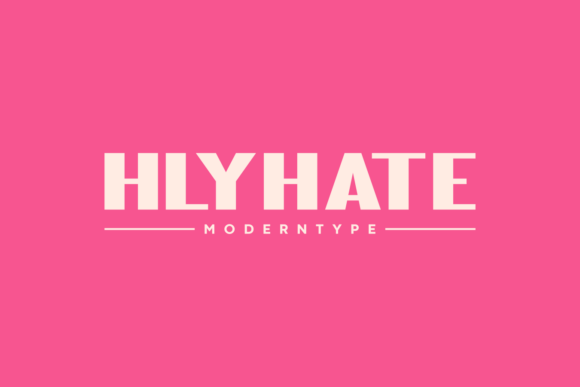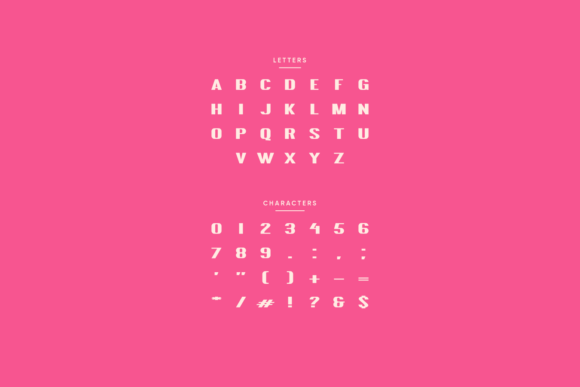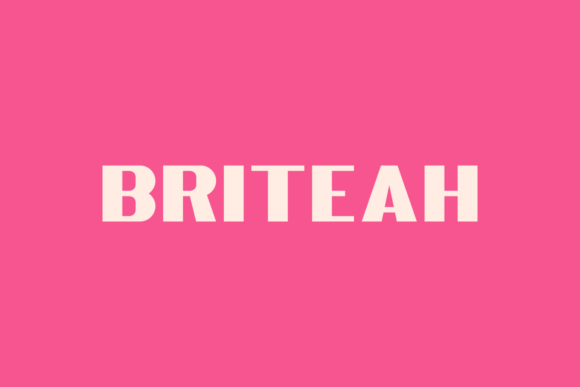
Introduction to Relyah Font
Relyah is a modern sans-serif font that offers the perfect balance between strength and elegance.
This font features a clean, precise, and versatile design Each letter is meticulously crafted, ensuring high readability and visual appeal in various sizes.
Key Features of Relyah Font